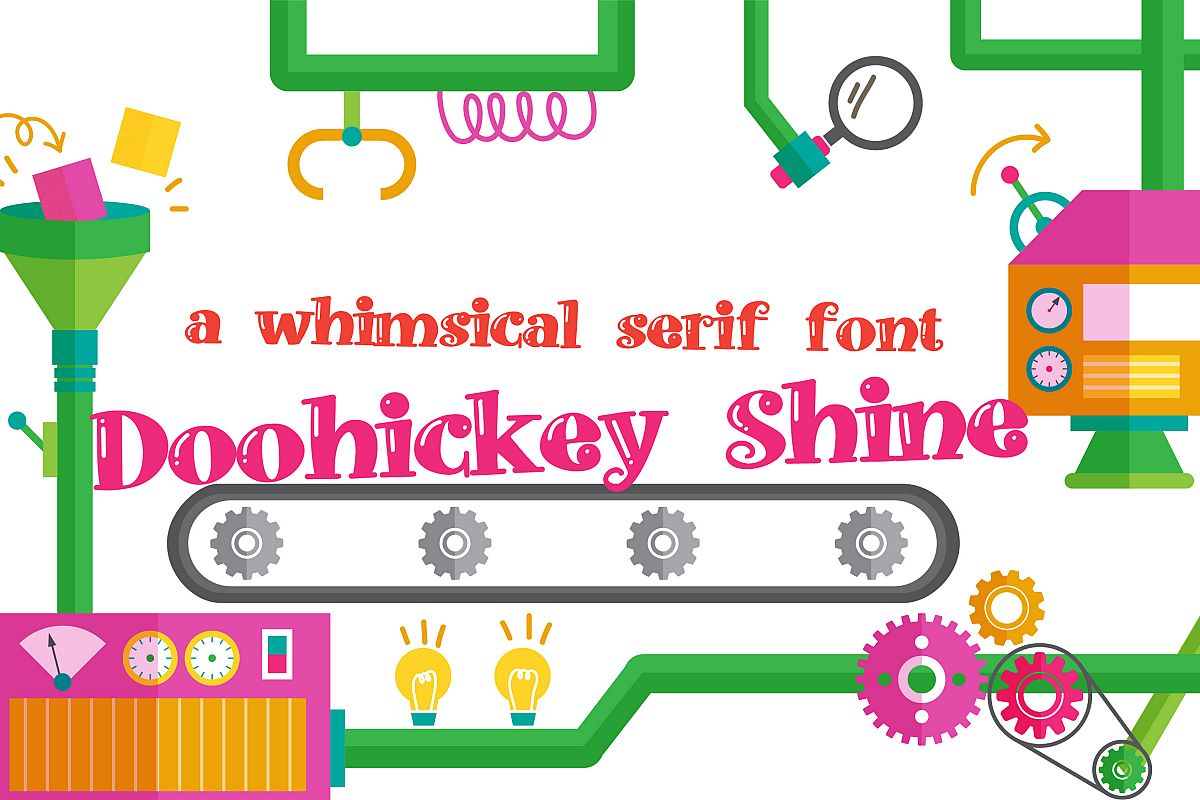
ZP Doohickey Shine
This serif font has a bit of whimsical plumpness to it. It sports a little shine mark throughout. Check out her sister font, ZP Doohickey for the solid version.